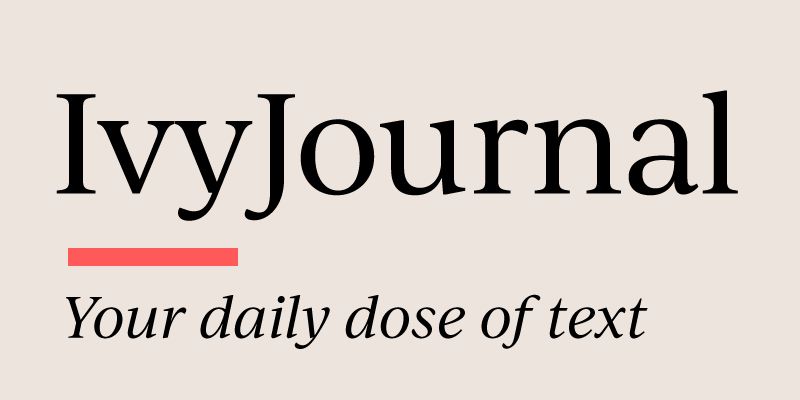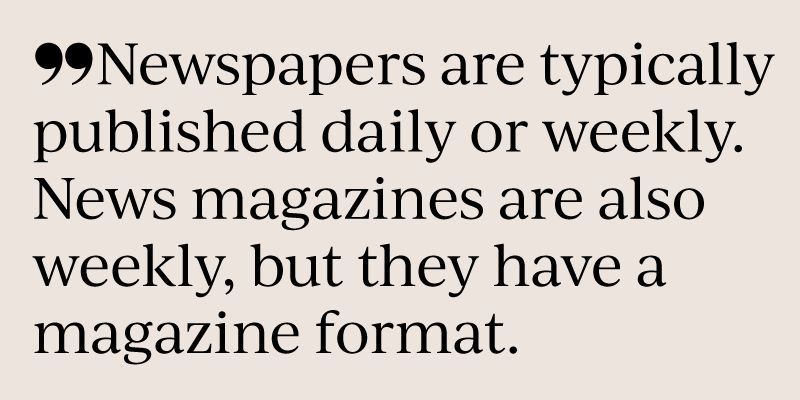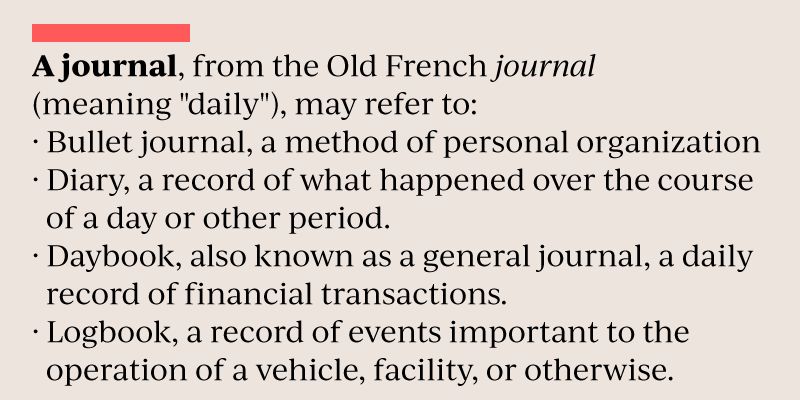
IvyJournal applies the principles of both Roman inscriptional capitals and classic metal types like Bembo, Baskerville, and Times New Roman to a contemporary workhorse serif. It was originally supposed to be part of the IvyStyle type system. Throughout its development, though, Jan Maack’s vision of where he wanted to go with this style made him gradually change the design until it became a standalone family. This versatile, elegant alternative to overused text faces feels equally at home in a book, a magazine, or in the office. The Ivy Foundry, 2017.